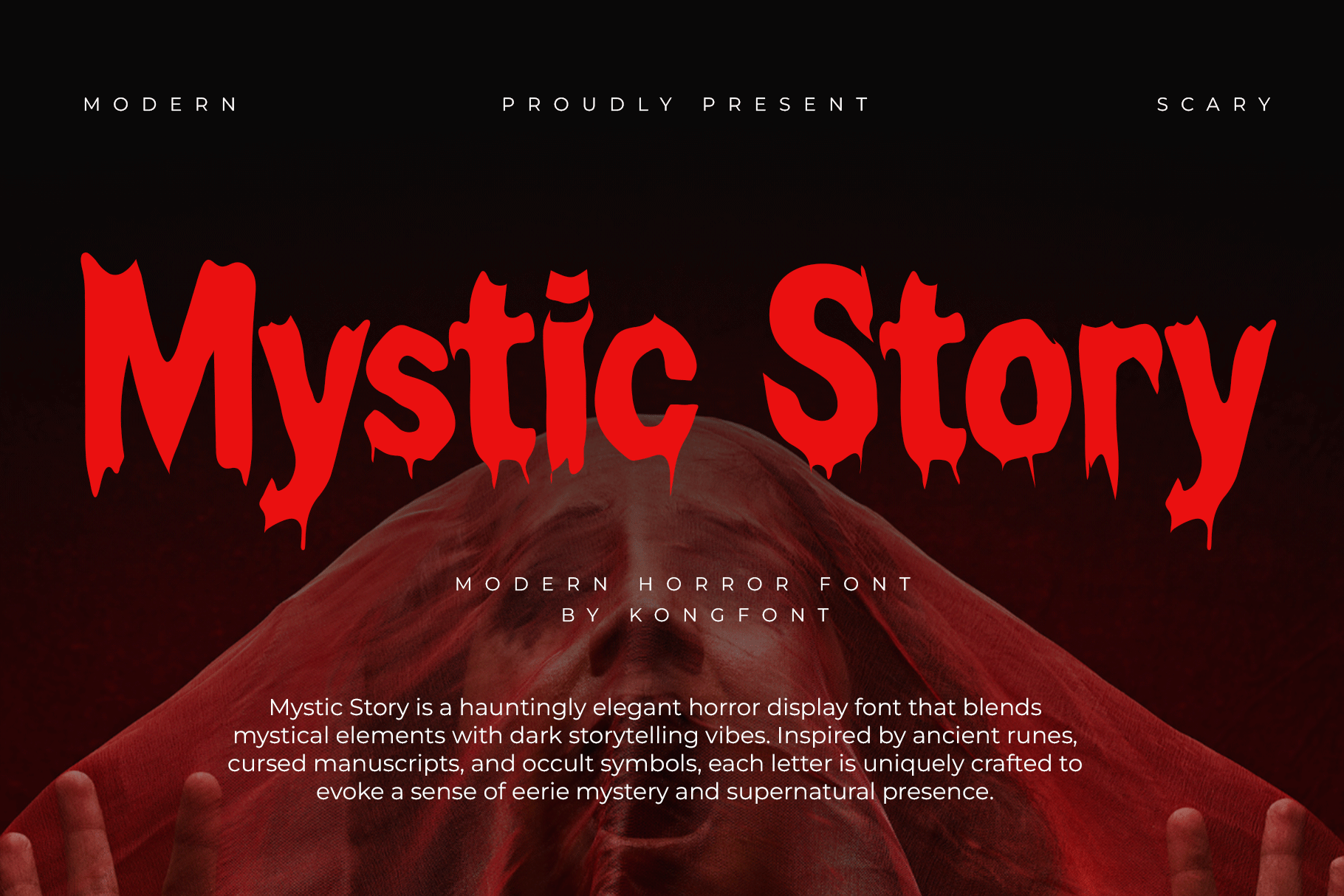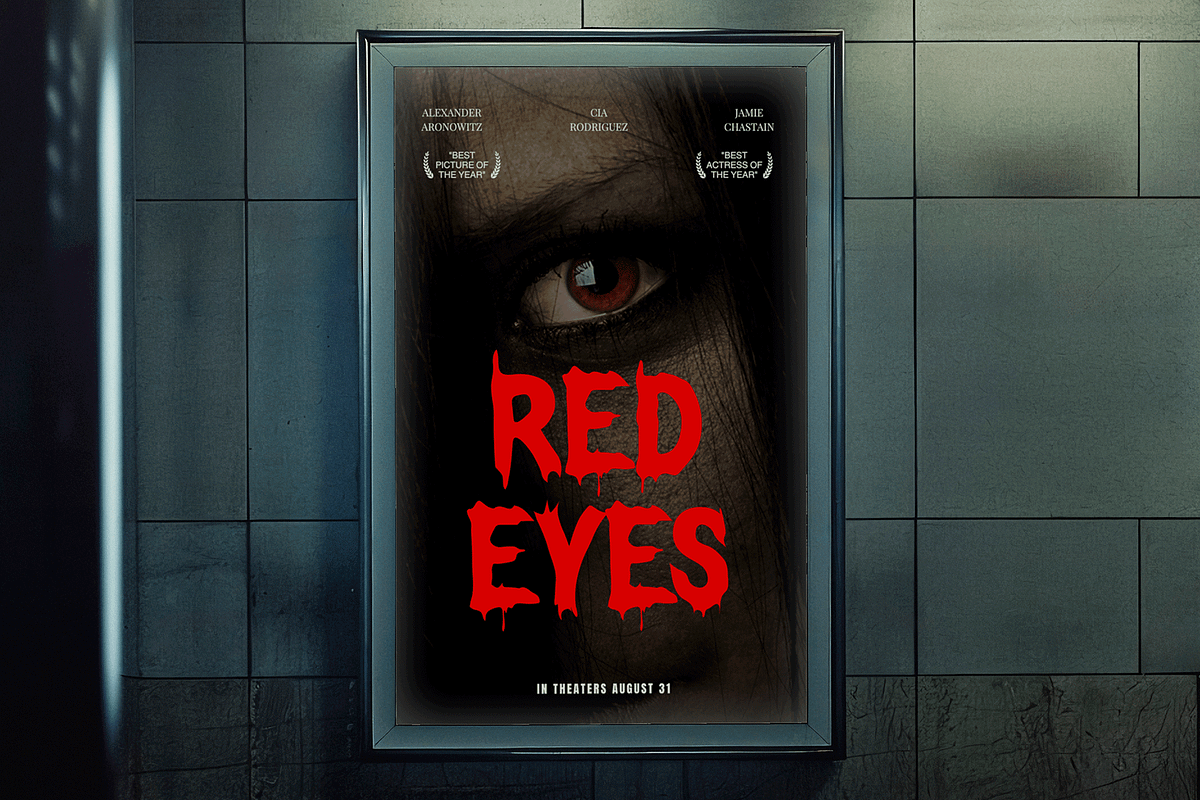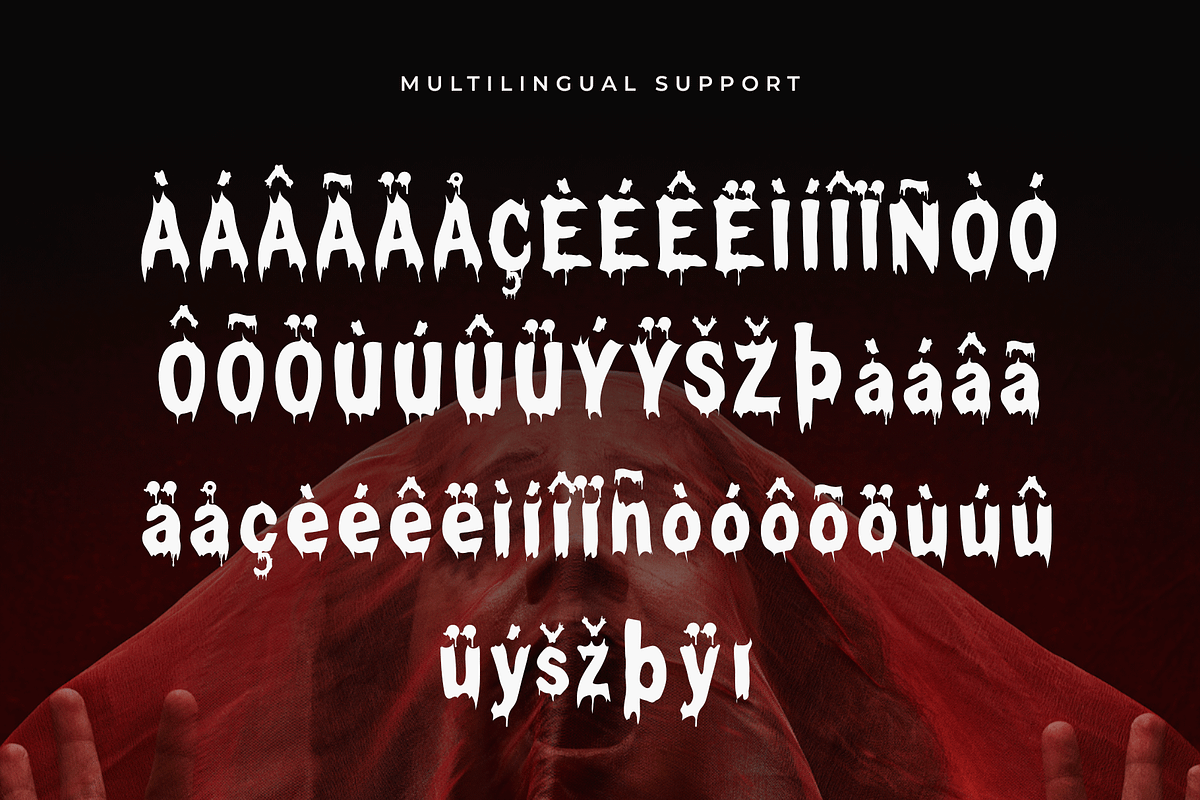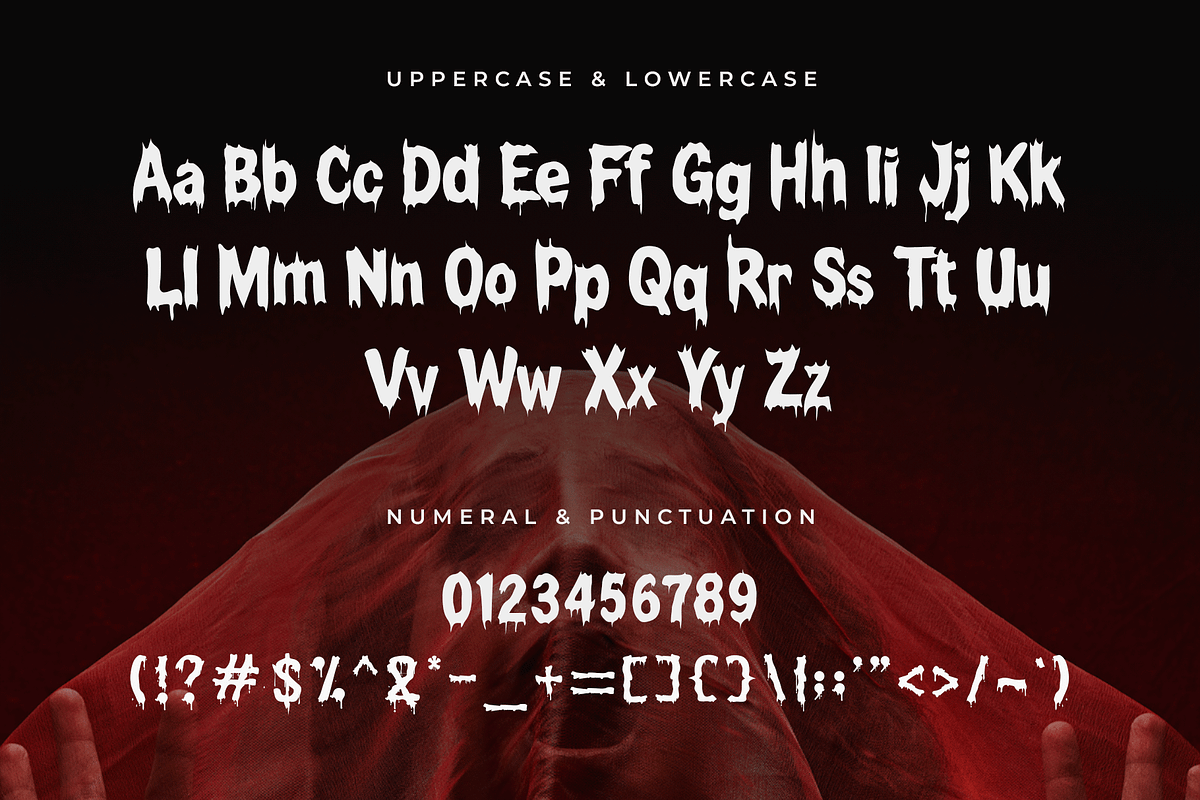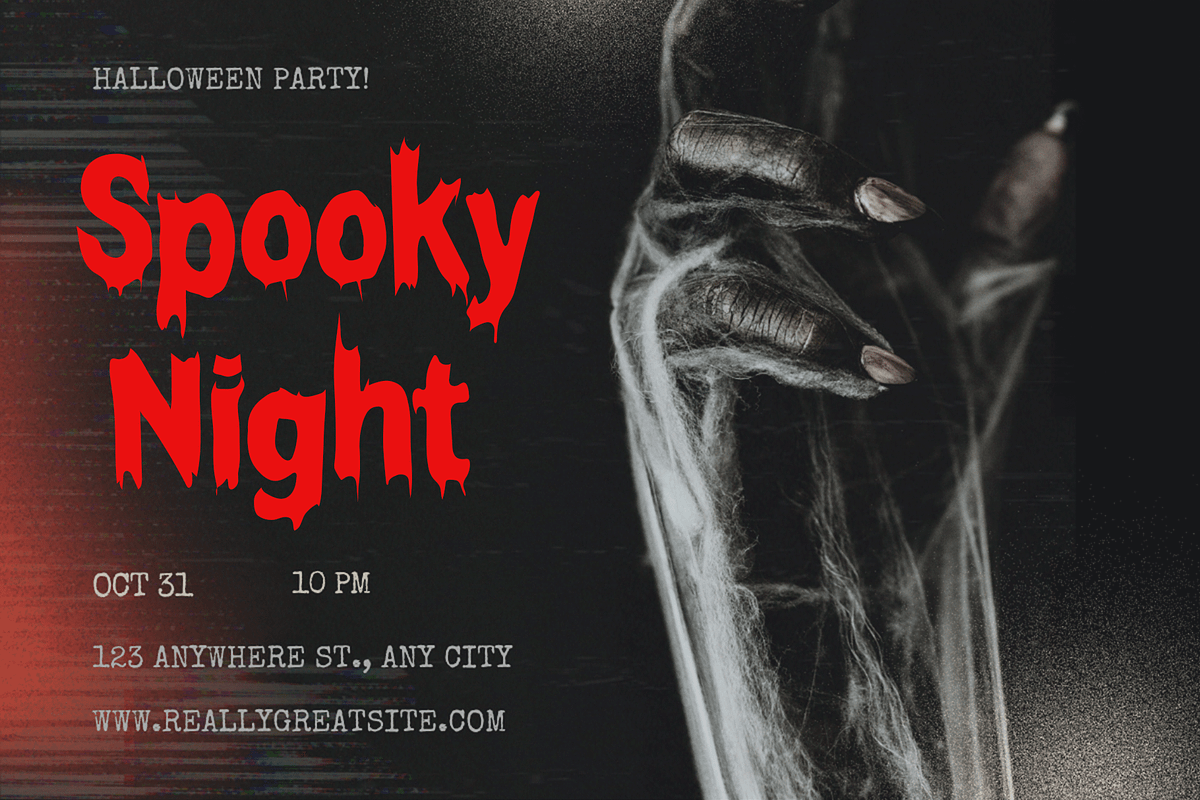
Mystic Story–Modern Horror Typeface
Mystic Story – A Modern Horror Typeface
Mystic Story is a modern horror typeface that blends eerie elegance with sinister charm. Designed to evoke mystery, suspense, and a chilling atmosphere, this font is perfect for projects that demand a haunting visual identity.
With sharp strokes, uneven curves, and dramatic flair, Mystic Story captures the essence of modern horror design—making it ideal for horror movie posters, Halloween invitations, dark-themed branding, book covers, and spooky merchandise.
The typeface includes uppercase letters, lowercase, numerals, punctuation, and multilingual support, ensuring creative flexibility while delivering an unmistakable horror aesthetic.
Let your designs whisper tales of fear and fascination with Mystic Story, where every glyph tells a chilling tale.